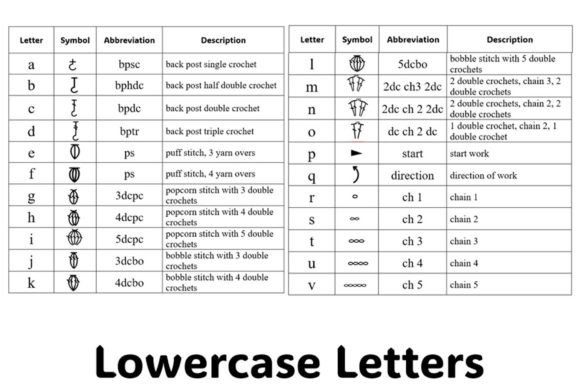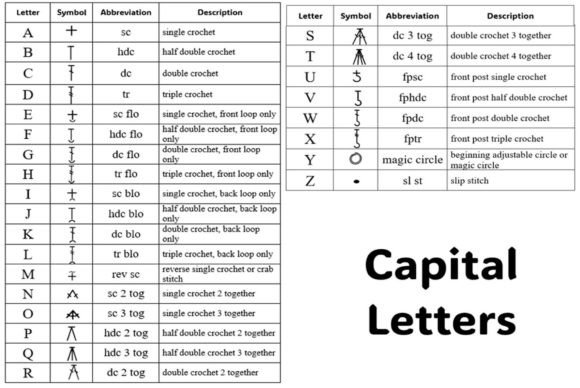
Introduction to Crochet Chart Symbols Font
There’s nothing quite like the feeling of holding a hook in your hand, surrounded by a sea of yarn and the promise of a creative project waiting to be brought to life. Whether you’re a seasoned crochet enthusiast or just starting to explore the world of yarn crafts, the process of designing and creating a new pattern can be a truly magical experience.
However, as any designer knows, creating a high-quality crochet chart can be a daunting task, especially when it comes to incorporating the various stitches and symbols that bring a pattern to life. That’s where the Crochet Chart Symbols Font comes in – a valuable design resource that makes it easy to create professional-looking charts with just a few clicks.
With this versatile font, you’ll have access to 48 essential crochet chart symbols, including basic stitches, front post and back post stitches, popcorn and bobble stitches, and much more. Plus, with transparent background options and the ability to resize, color, and rotate the symbols, you’ll be able to create custom charts that perfectly match your design vision. And the best part? The entire set is available for free download in both otf and ttf formats, making it a must-have for any serious crochet designer.
Crochet Chart Symbols Font
- High-quality design resource for creative projects, including crochet patterns and charts.
- Includes a wide range of Crochet Chart Symbols Font characters, including stitches, symbols, and icons.
- Transparent background allows for easy integration into various design environments.
- Vector-based design, scalable to any size without loss of quality.
Honest Review: Crochet Chart Symbols Font
I recently had the chance to work with the Crochet Chart Symbols Font, and I must say it’s been a game-changer for my creative project. This font is a design resource that every crocheter or designer needs in their collection.
- ✨ Transparency: The font comes with a transparent background, which makes it super easy to place on any background image or texture.
- ✨ High Quality: The symbols are crisp and clear, making them perfect for use in crochet patterns, tutorials, or any other type of design.
As with any design resource, there are some limitations to keep in mind:
- ⚠️ Limited Customization: While the font is high quality, it’s not customizable, which might limit its use in certain creative projects.
- ⚠️ Not Ideal for Small Text: Due to its large size, the font might not be the best choice for text-heavy designs or small print materials.
Overall, I’m really impressed with the Crochet Chart Symbols Font. It’s a valuable addition to any designer’s toolkit, and I’d highly recommend it to anyone working on a crochet or knitting project.
Crochet Chart Symbols Font
Crochet Chart Symbols Font is a comprehensive design resource that helps crafters and designers create high-quality, visually appealing crochet charts for their creative projects. This font is available for free download and features a transparent background, making it easy to use in various design applications.
To get the most out of Crochet Chart Symbols Font, use it to create custom crochet charts, patterns, and designs for your projects. Experiment with different font sizes, colors, and layouts to create unique and visually appealing designs.
Crochet Chart Symbols Font is commonly used for creating custom crochet charts, patterns, and designs for various craft projects, including afghans, scarves, hats, and other garments. It’s also used for creating educational resources, such as tutorials and patterns, for crochet enthusiasts.